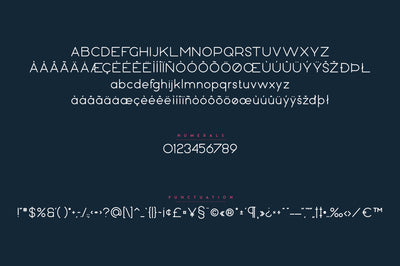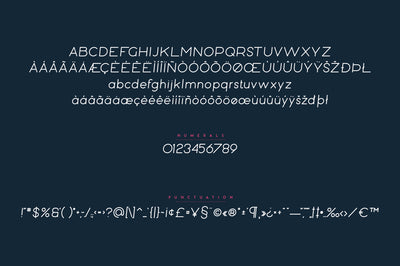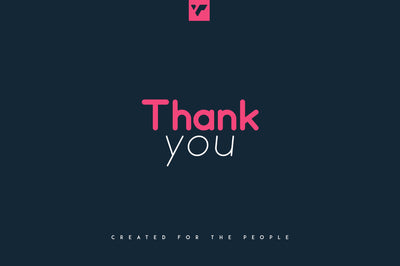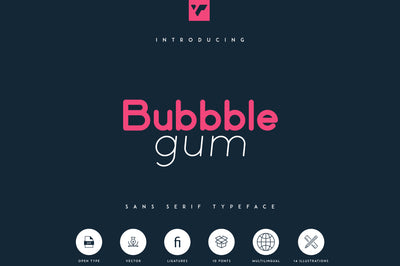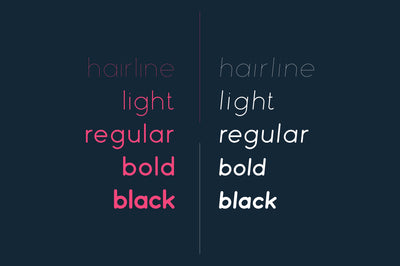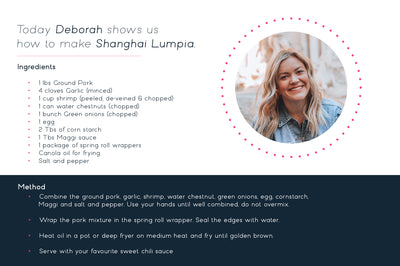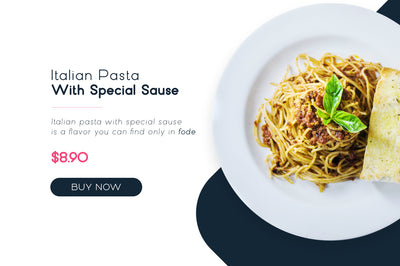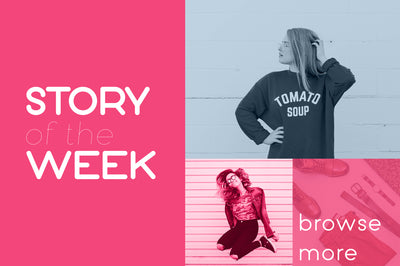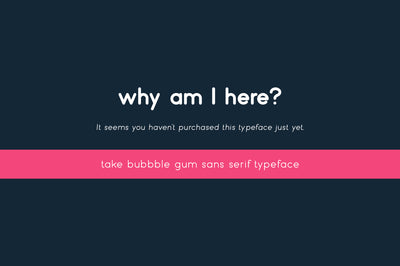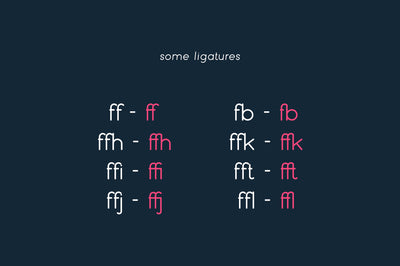
Bubbble Gum - sans serif typeface
Introducing Bubbble Gum - sans serif typeface - 10 fonts
Bubbble Gum is modern, rounded typeface with 10 fonts, regular, italic and multilingual support. It's a very versatile font that works great in large and small sizes.
Bubbble Gum is perfect for branding projects, home-ware designs, product packaging, magazine headers - or simply as a stylish text overlay to any background image.
• Uppercase, Lowercase numeral, punctuation & Symbol
• Hairline
• Light
• Regular
• Bold
• Black
• Italic ( Hairline, light, regular, bold, black )
• Ligature glyphs
• Multilingual support